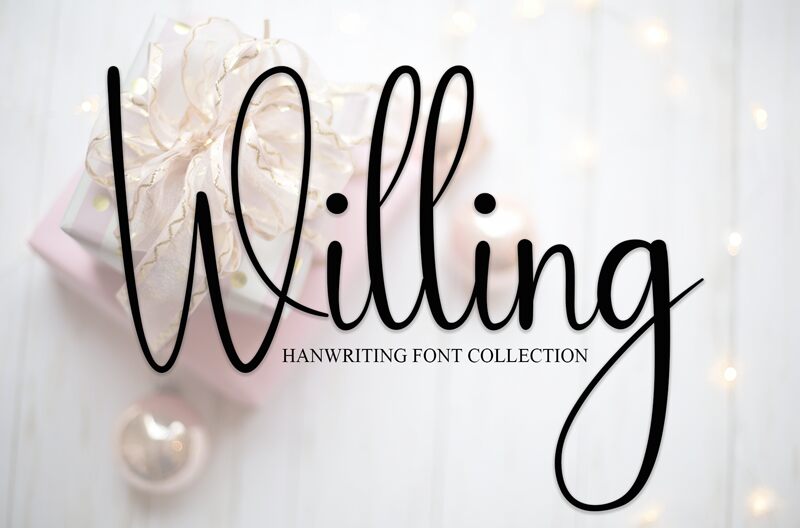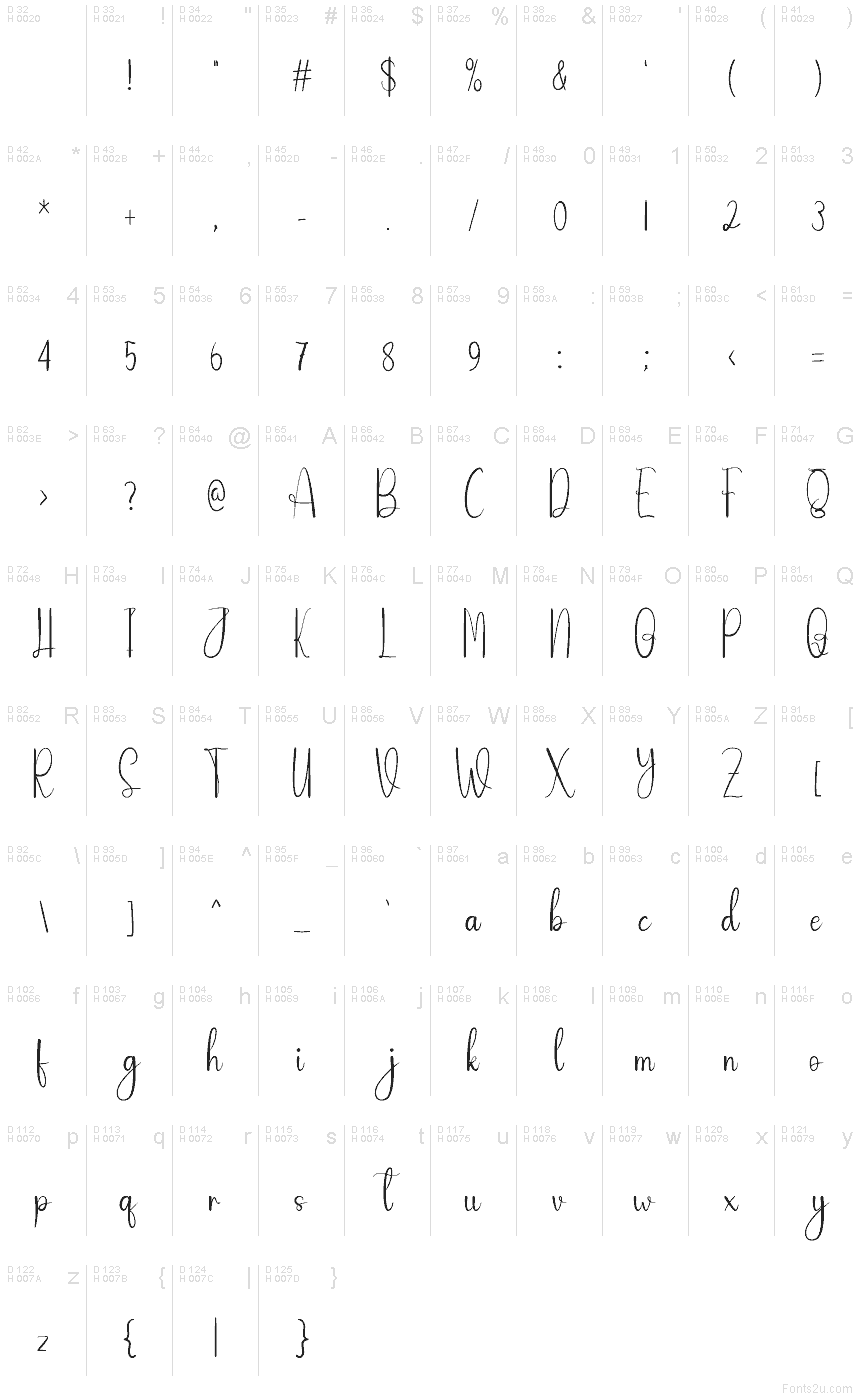
Willing
Willing font by Creatype Designer is a free handwritten font that combines a modern look with an elegant, expressive aesthetic. Flowing and cursive in style, the typeface features light, condensed letters that can be applied to all kinds of designs reflecting its airy tone and vibe.
Pick Willing for logotype design, invitations, tall headings, book covers, posters, typography art prints and motivational quotes. Use this beautiful script on social media posts or as part of your personal branding such as business cards or merchandise.
This font retains a classy calligraphic influence while feeling contemporary and fresh. Its versatility will attract a wide range of creative ideas, from letterheads and titles to stationery.